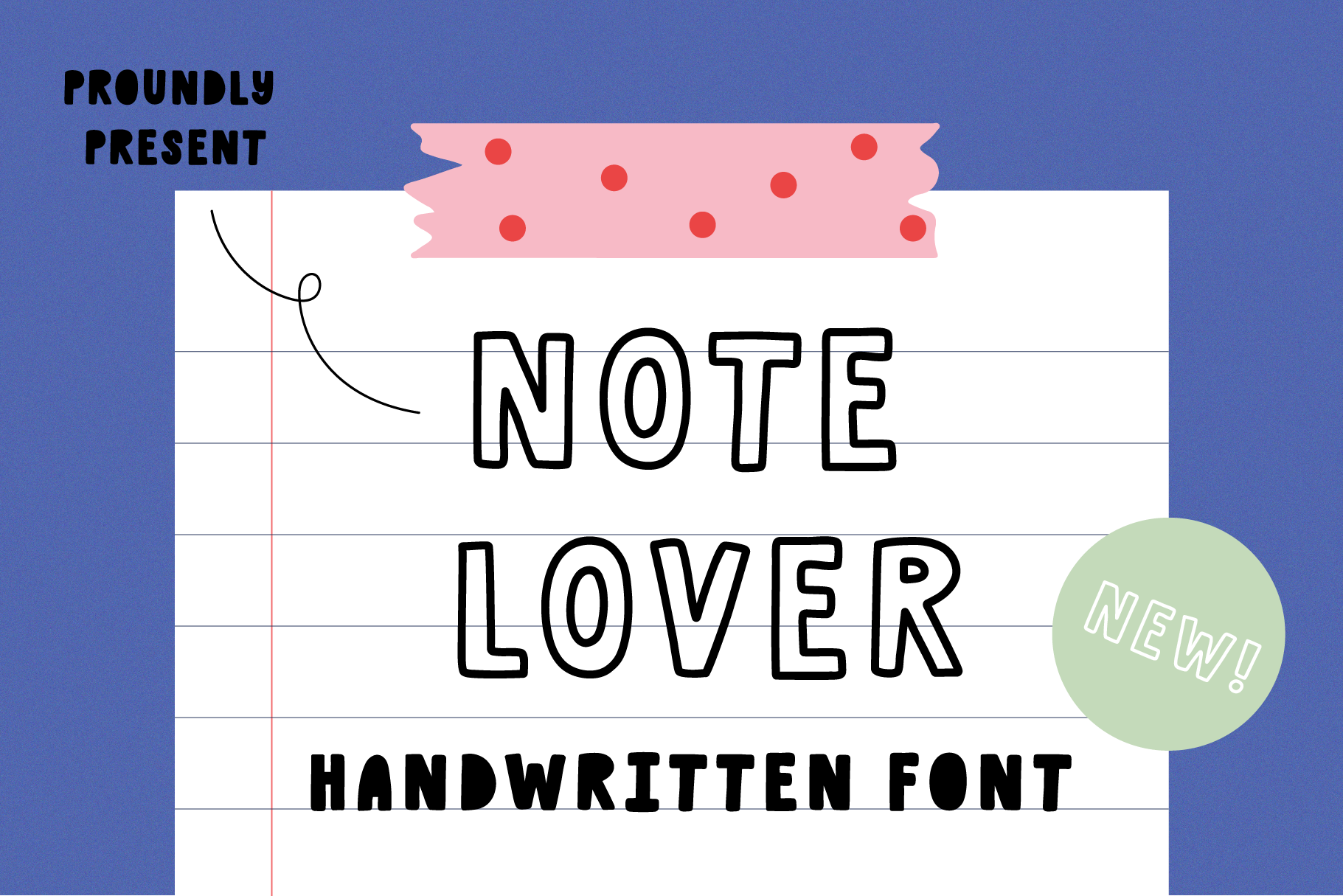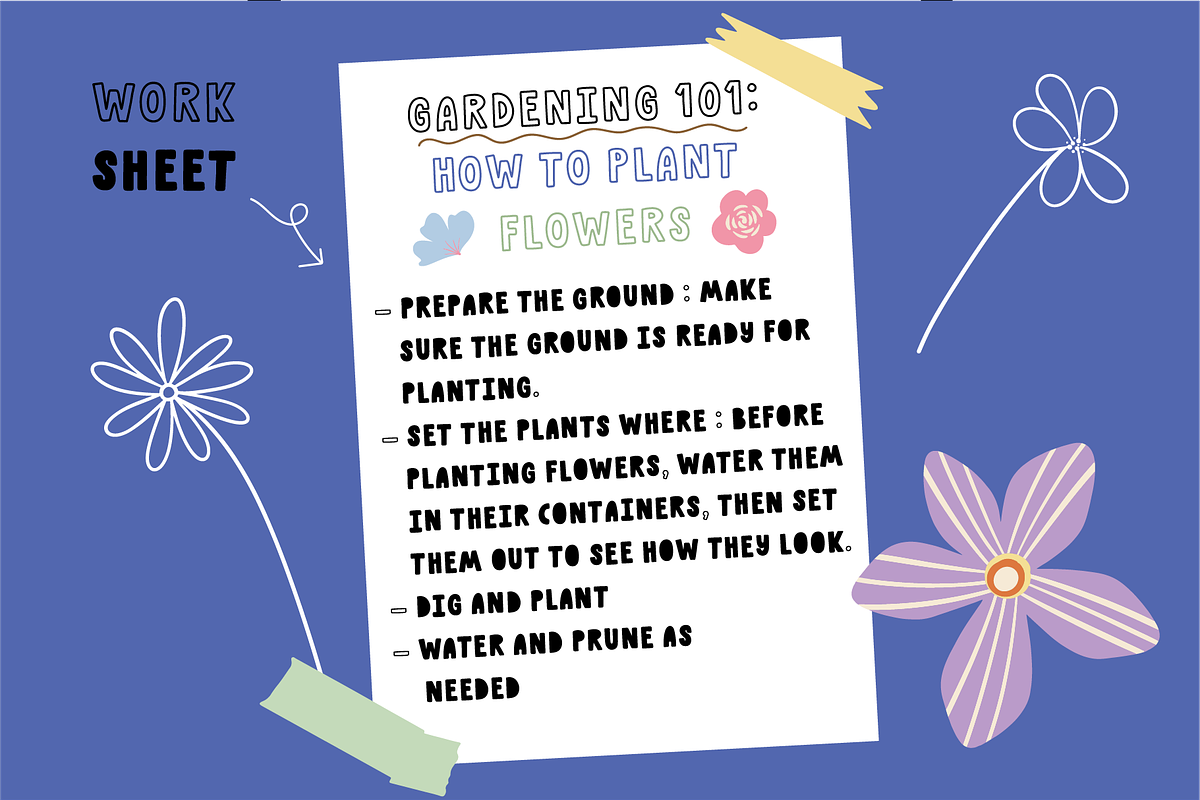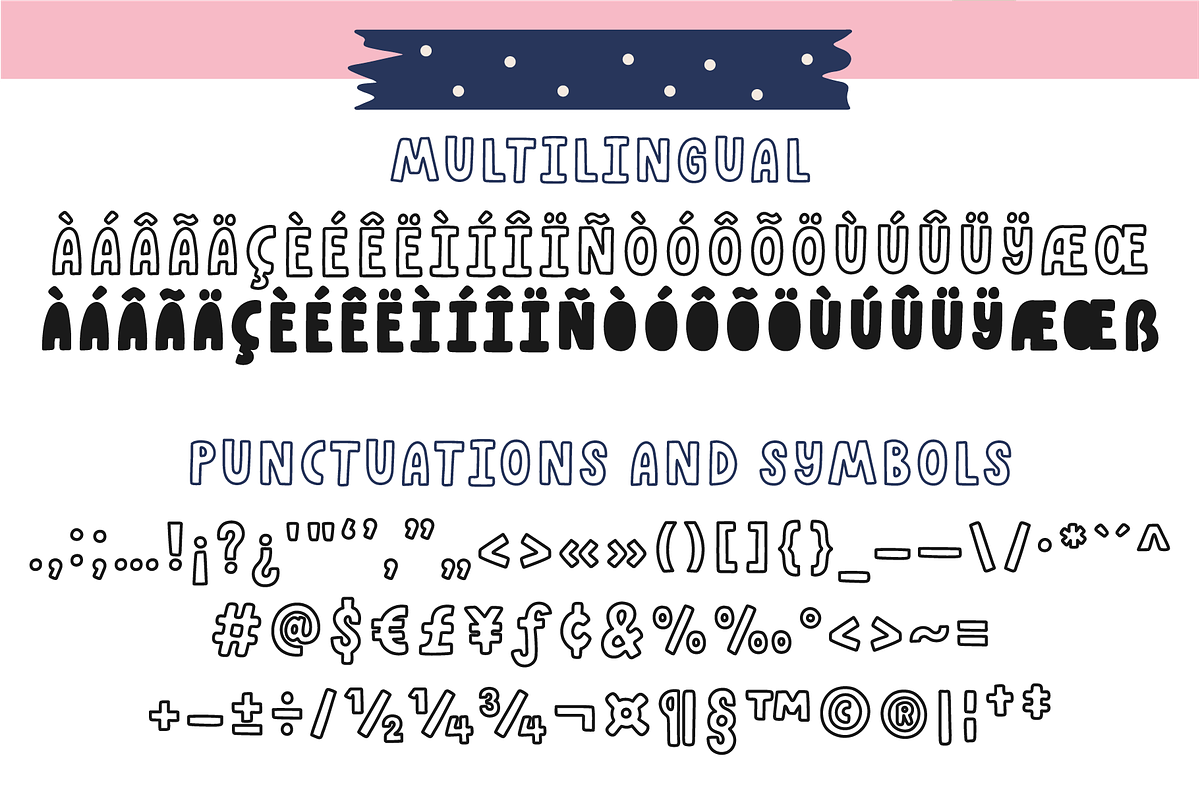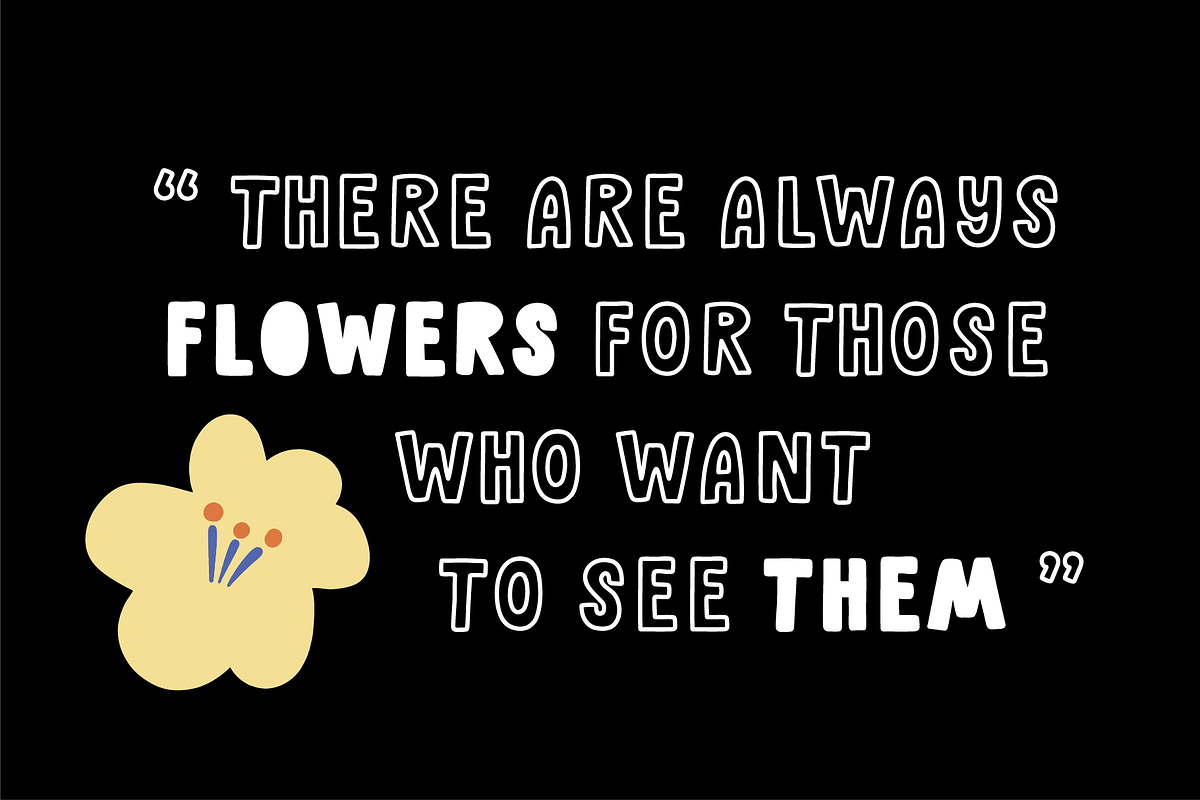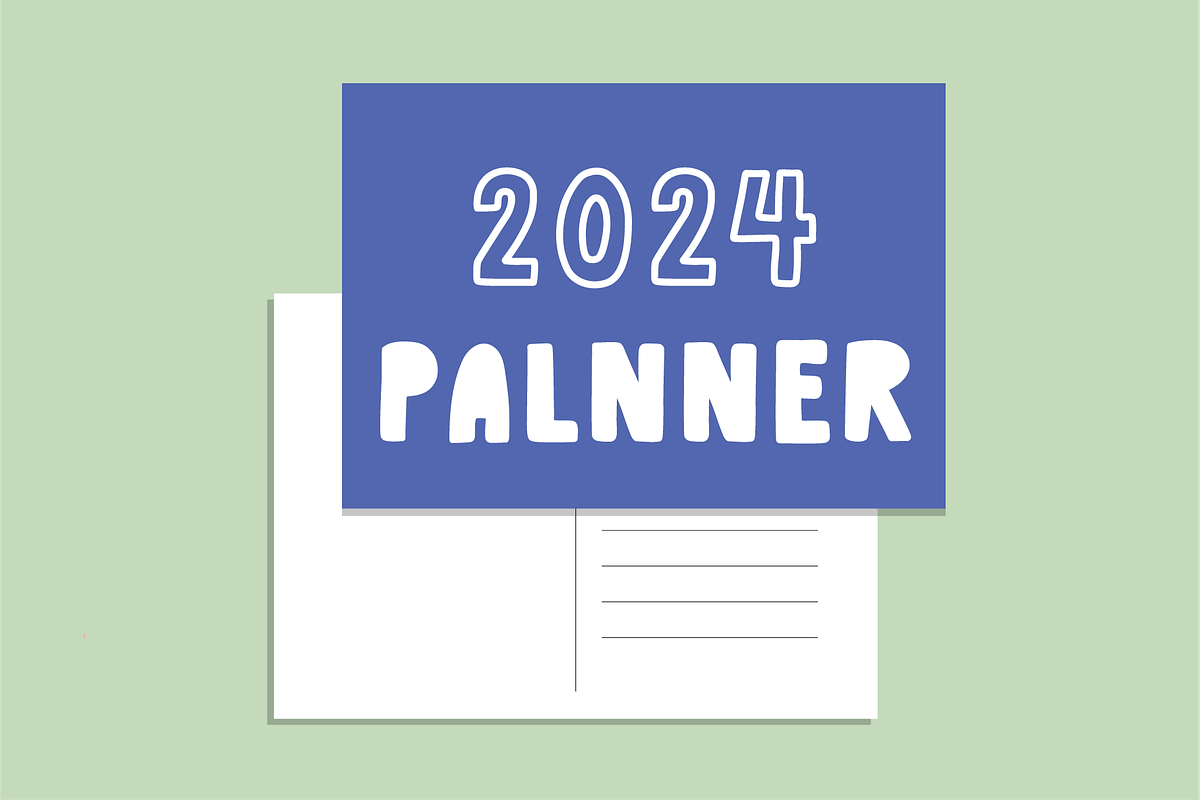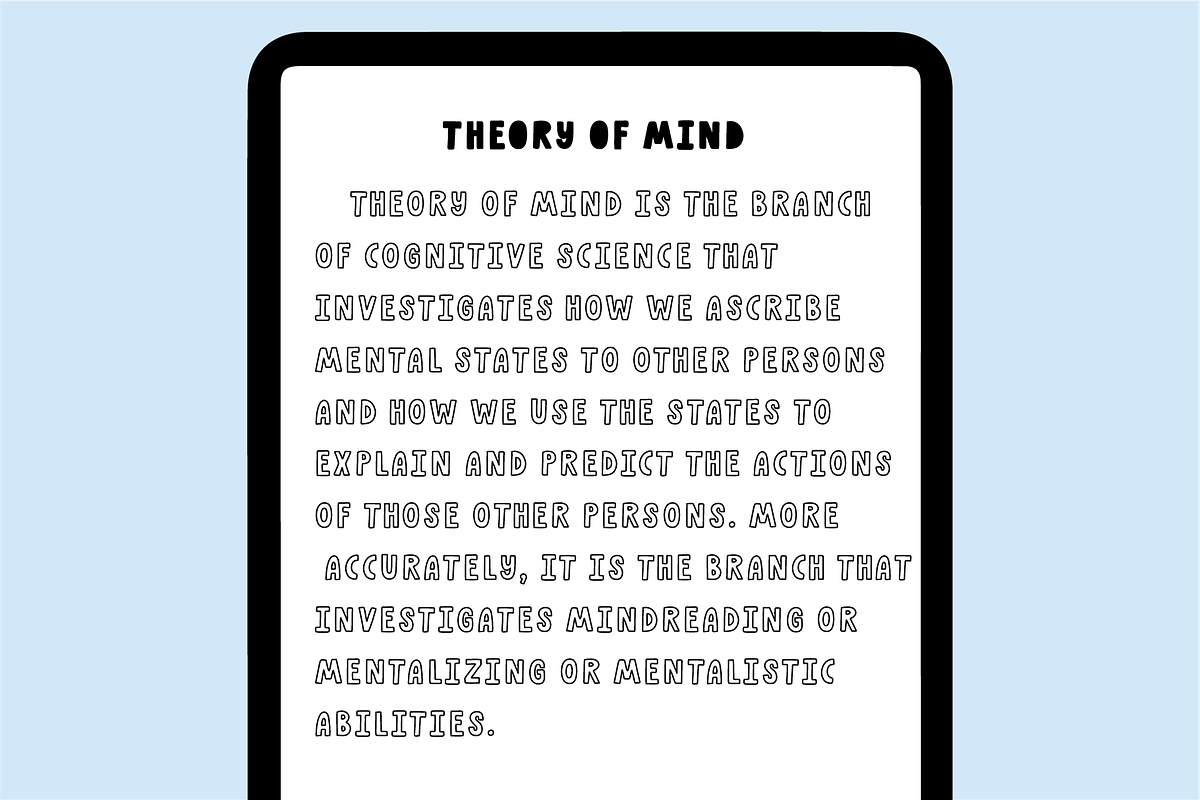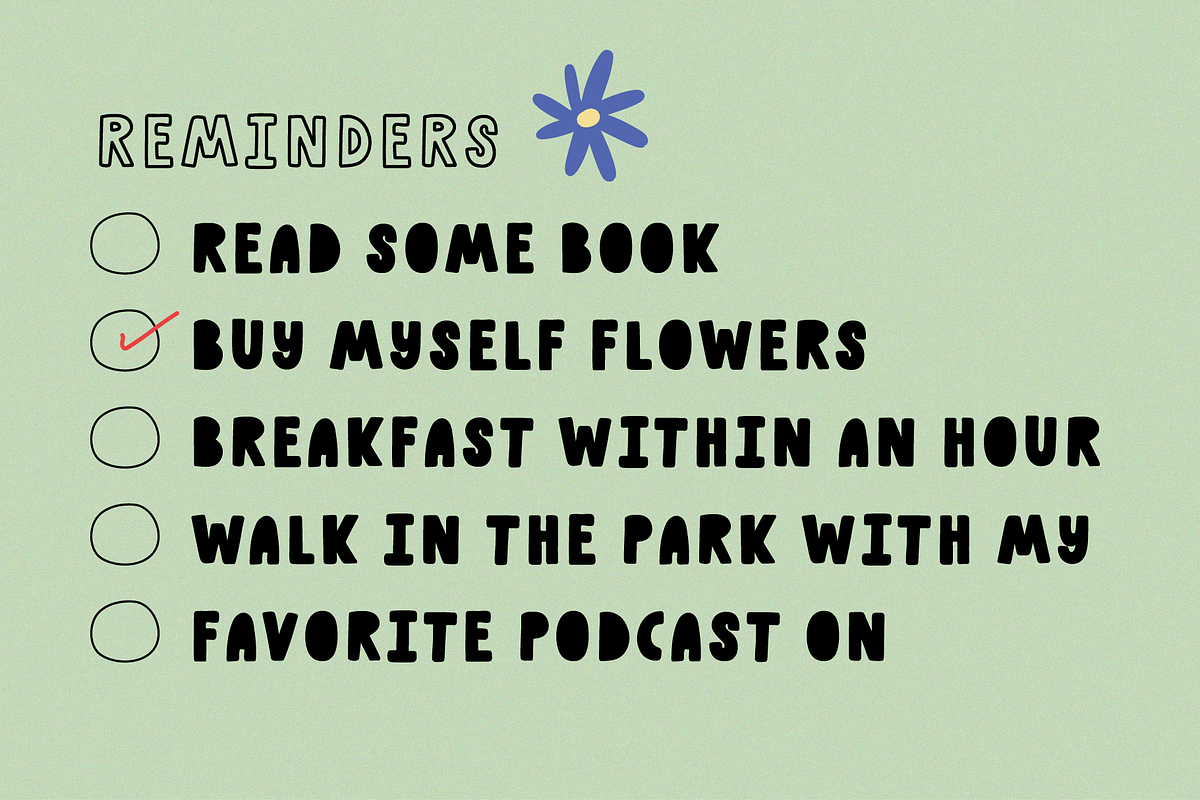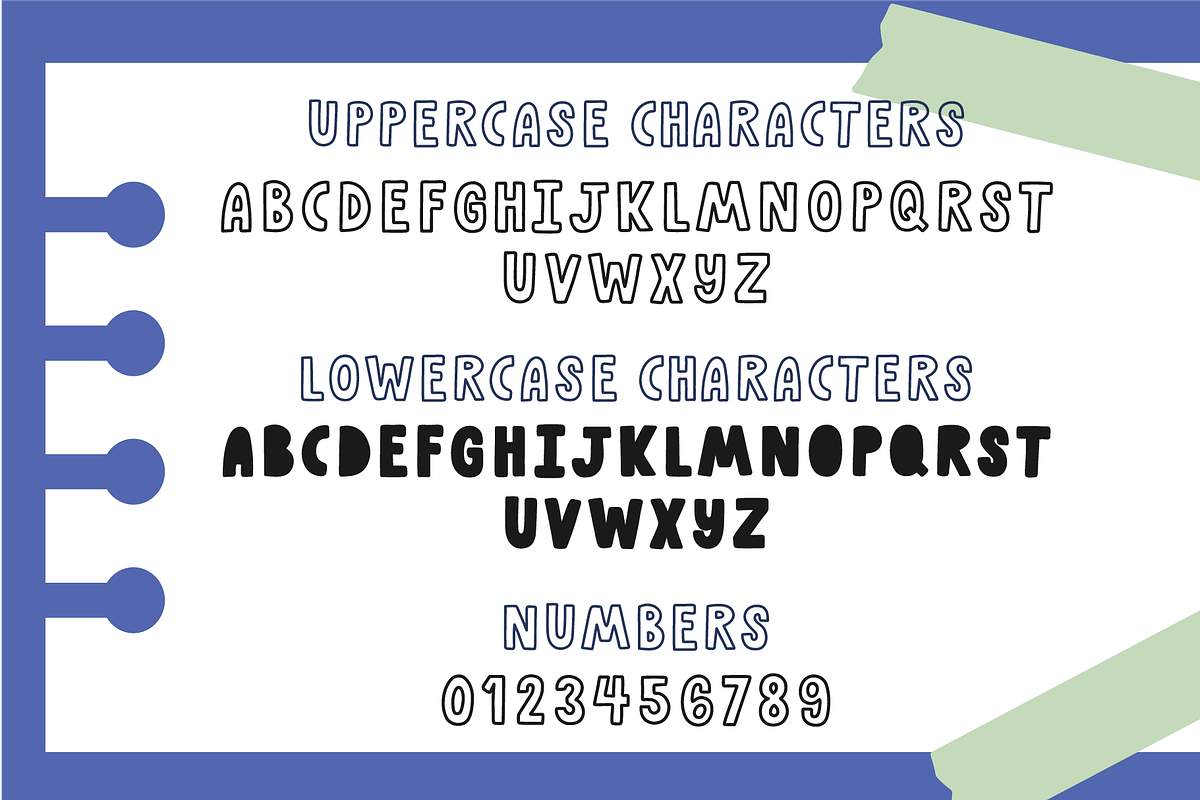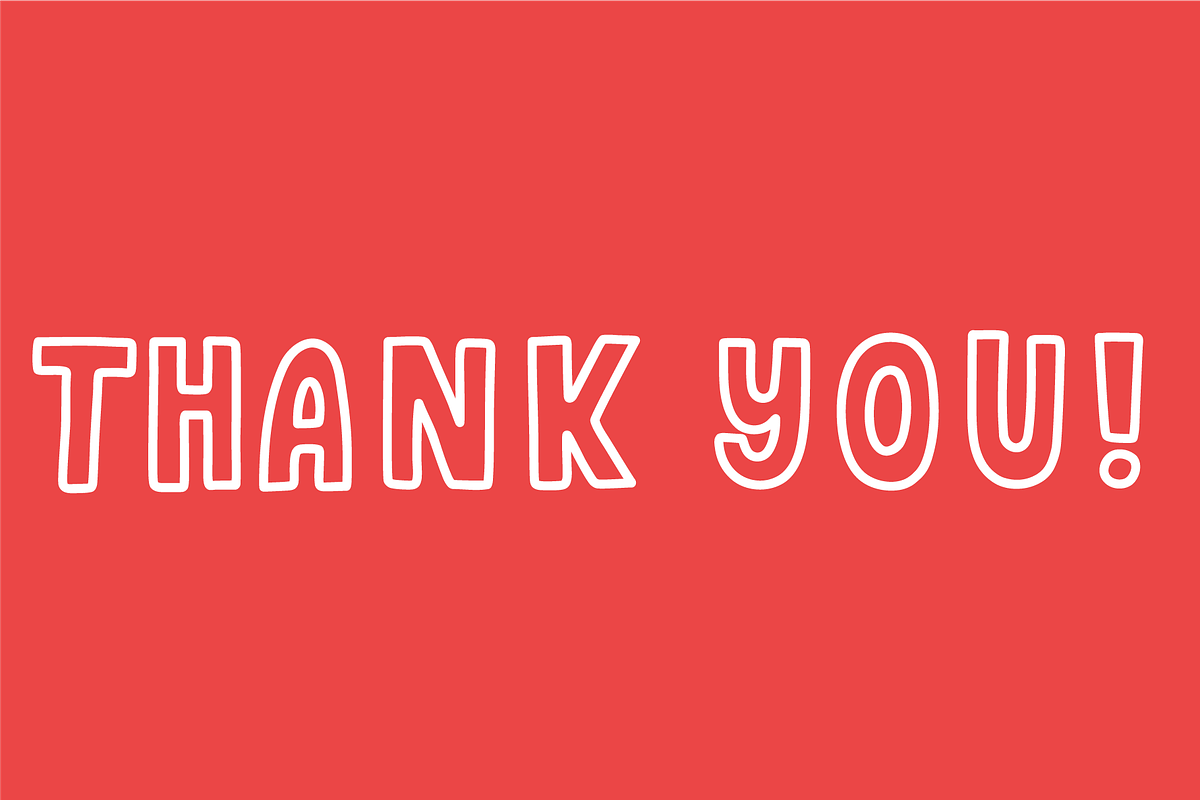
Note Lover Font
NOTE LOVER is a playful handwritten font. Perfect for everyday use such as writing diary or note, creating posters, logos, greeting cards, packaging and so much more!
Note lover Font Features:
- Extended punctuation.
- Multilingual Characters support.